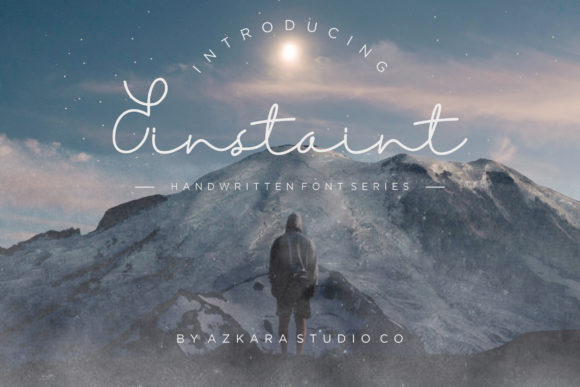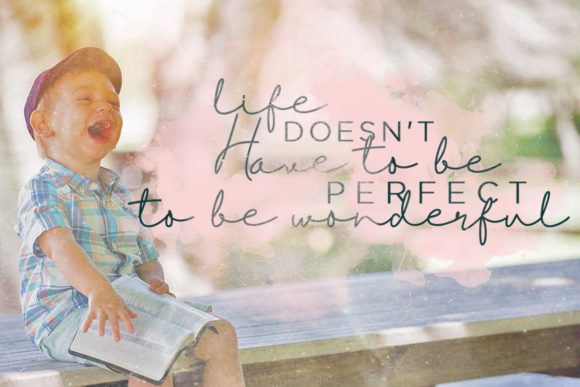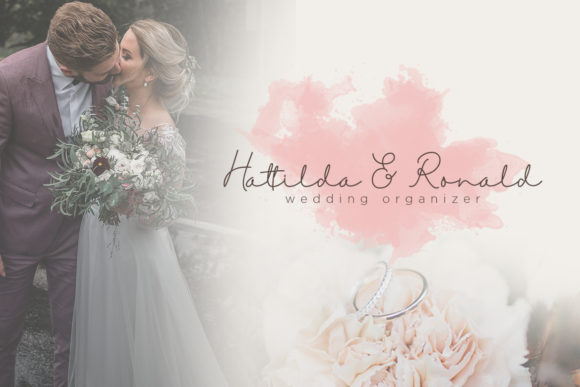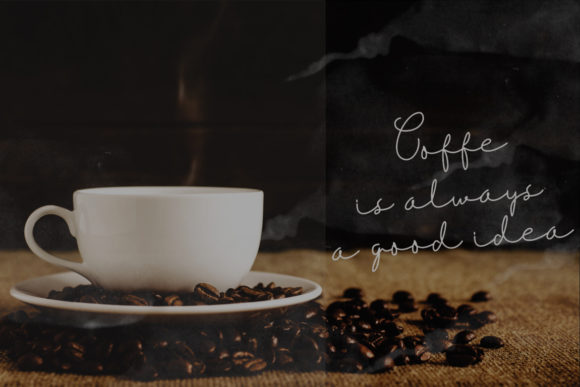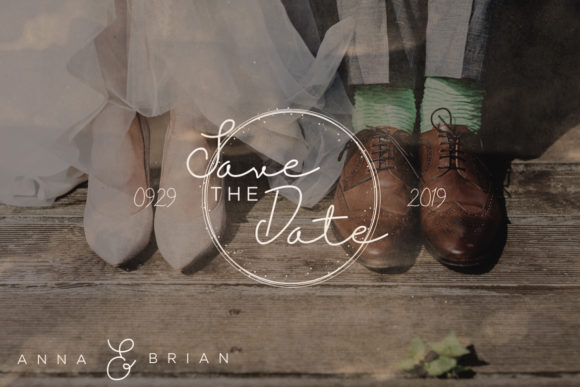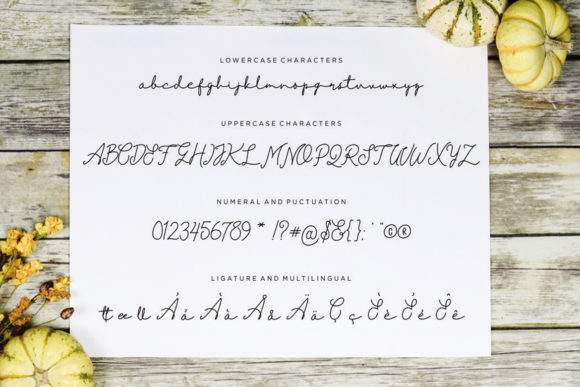
Einstaint
About Einstaint Font
Einstaint feels equally charming and elegant. This stunning handwritten font is a stylish homage to classic calligraphy. It features a varying baseline, smooth lines, gorgeous glyphs and stunning alternates.Fall in love with its authentic feel and use it to create gorgeous wedding invitations, beautiful stationary art, eye-catching social media posts, and cute greeting cards.